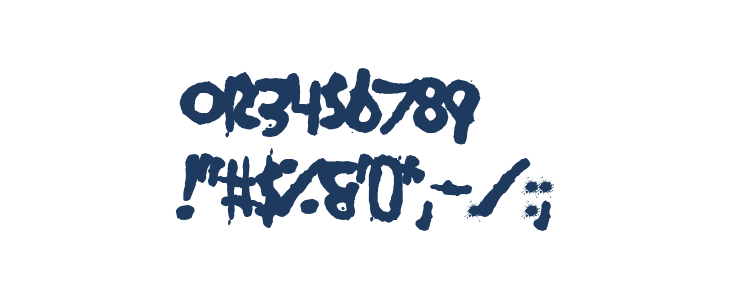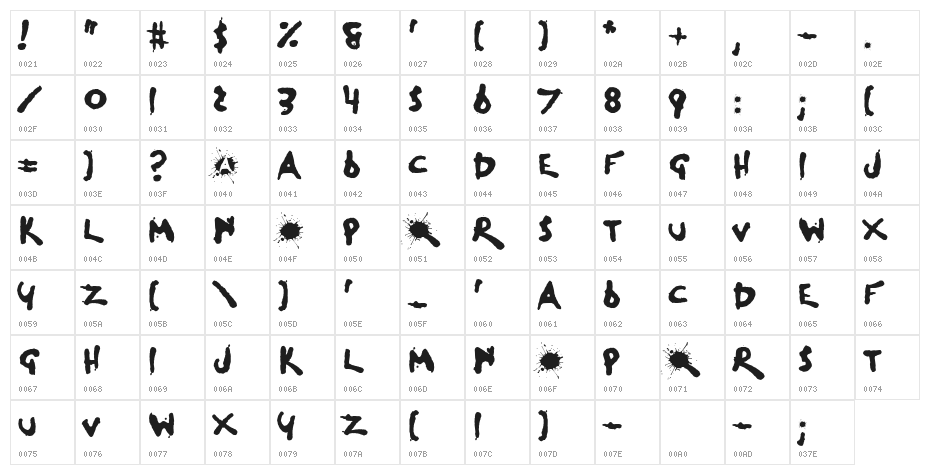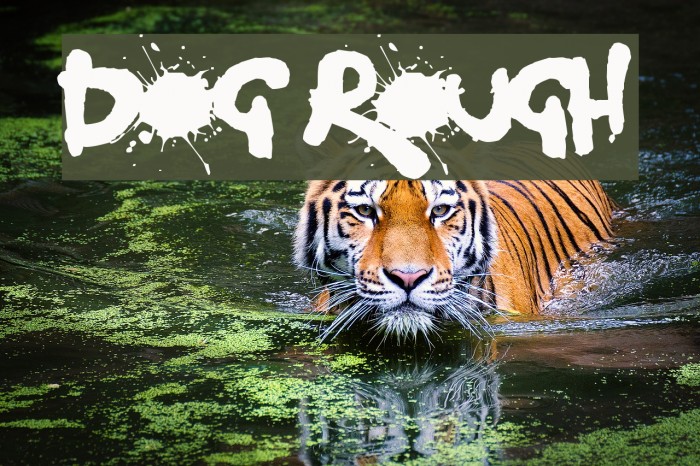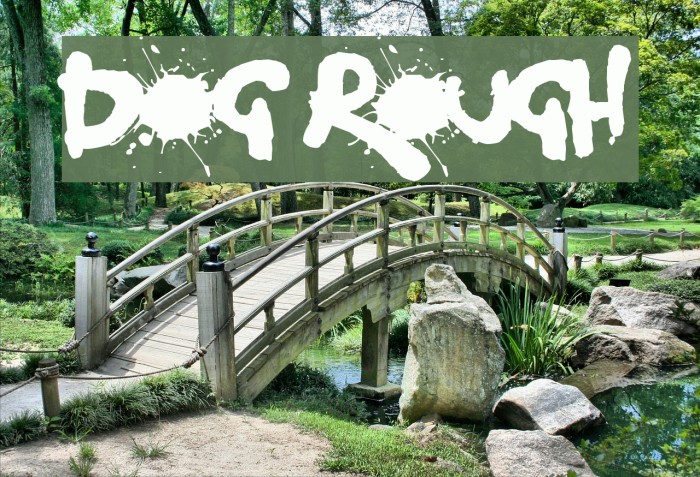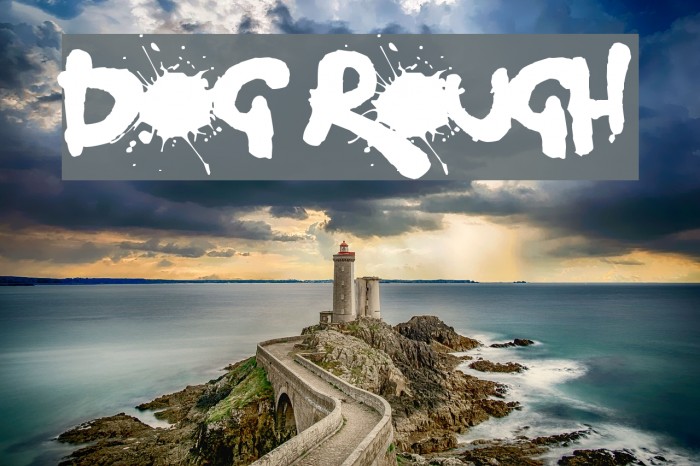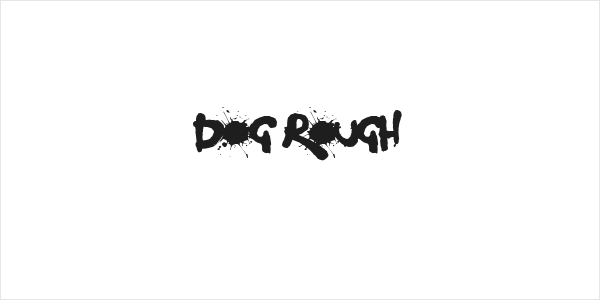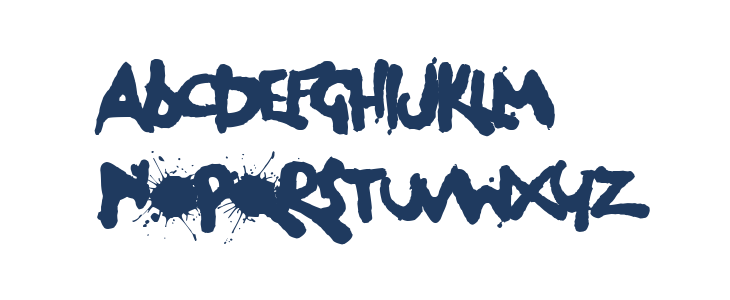
Dog Rough Font
Dog Rough Description
This font exhibits a bold, graffiti-inspired style with a rough, hand-painted appearance. The characters are irregular and dynamic, featuring splatters and uneven edges that give it an urban, rebellious feel. The uppercase and lowercase letters maintain a consistent aesthetic, with exaggerated strokes and a sense of motion. Numbers and special characters follow the same design principles, ensuring a cohesive look across all elements. The font's unique style makes it stand out, ideal for projects that require a strong, artistic statement.
| Overall Style | Urban, Rebellious, Artistic |
| Use Case | Headlines, Posters, Branding |
| Proposed Projects | Ideal for street art designs, urban-themed posters, album covers, and edgy branding projects. |